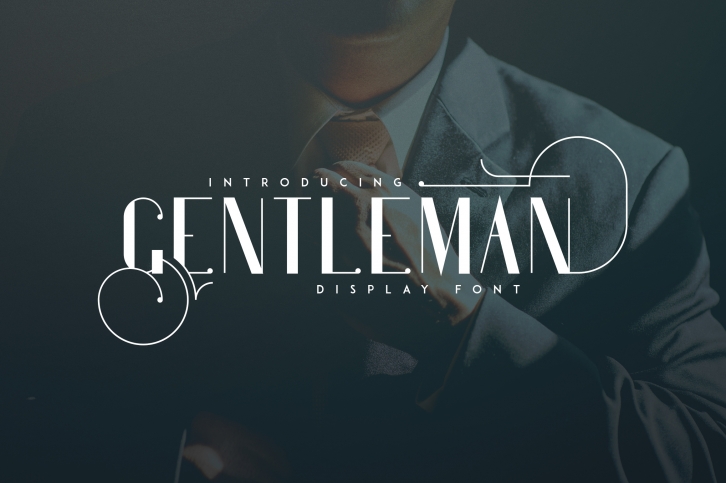
Gentleman is a stunningly sophisticated font, both versatile and clean. This font also comes with bonus logo templates, making Gentleman a fully realized and easy to use logotype.